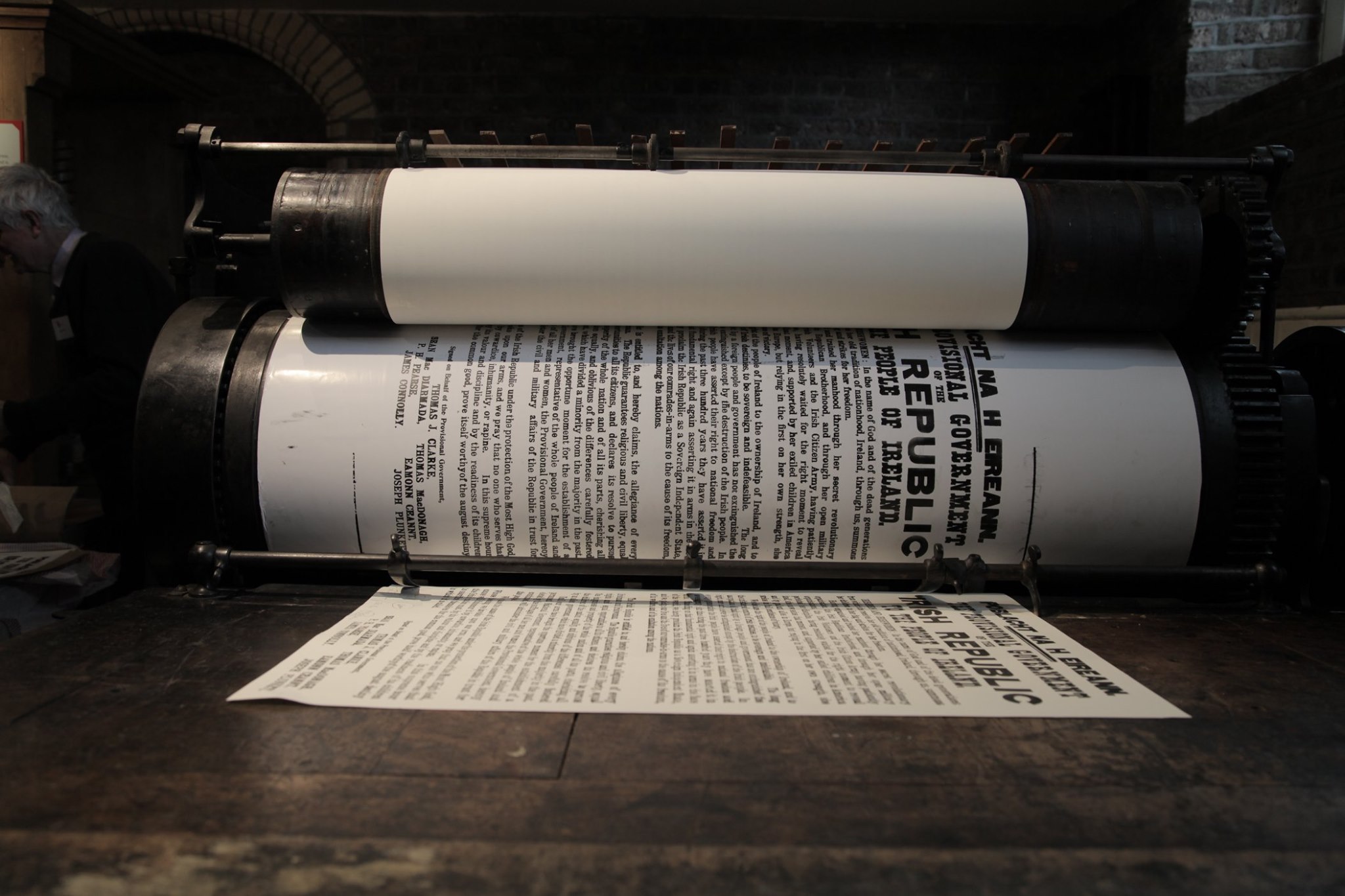
To protect and preserve: National Print Museum announces Ireland's love letter to letterpress printing
Ireland takes a stand for a craft not to be forgotten. On Thursday, July 28th, 2019 the country's Minister for Culture, Heritage and the Gaeltacht Josepha Madigan TD launched Ireland's permanent National Inventory of Intangible Cultural Heritage -a measure representing official State recognition of cultural practices all around the country and will serve to protect and promote these practices for generations to come. Celebrating living cultural heritage practices 30 elements of living Irish culture were given official recognition at the event which took place at Waterways Ireland and Letterpress Printing is one of them.
“It is wonderful to see such a variety of customs and traditions from all over the country being acknowledged here today. Each of these threads in the cultural tapestry of our lives makes us richer as individuals and as a country. None of this would be possible without the work of committed volunteers all around the country, whose involvement in their communities’ cultural practices and heritage traditions have sustained them over the generations. I am delighted to honour those customs, practices and traditions through official State recognition on the National Inventory” noted the Minister.
The development of the National Inventory of Ireland’s Intangible Cultural Heritage is an integral part of the Department of Culture, Heritage and the Gaeltacht’s work under the 2003 UNESCO Convention for the Safeguarding of the Intangible Cultural Heritage which requires signatory States to recognise, protect and promote the living cultural heritage of their countries.
As noted in Ireland's National Print Museum social media posts the recognition of letterpress printing in this capacity is the result of a successful application by the museum's CEO, Carla Marrinan Funder, to the above.
In the event of Ireland's pledge to protect and preserve the art of the letterpress craft we take a look at the country's National Print Museum. Spear-headed by Sean Galavan, the National Print Museum was founded by members of the print industry and it opened its doors in 1996. Today the Museum is fully accredited under The Heritage Council’s Museums Standards Programme for Ireland.
“Letterpress is a form of relief printing, which was invented by Johannes Gutenberg in 1439. The invention is one of the greatest known to mankind. It was the chief manner of printing which prevailed for over 500 years before becoming obsolete, in the commercial sense, in the mid-twentieth century”
“It is a unique museum — the only one of its kind in Ireland. The collection is made up largely of letterpress printing equipment. Letterpress is a form of relief printing, which was invented by Johannes Gutenberg in 1439. The invention is one of the greatest known to mankind. It was the chief manner of printing which prevailed for over 500 years before becoming obsolete, in the commercial sense, in the mid-twentieth century.”
“The main collection is not behind glass or rope, but is instead an example of a working collection. The collection consists of fully-operational letterpress printing equipment, displayed and organised like a traditional 1960s print-shop. The panel of retired printers and compositors, who founded the Museum continue to play a vital role in preserving the collection and the craft. A major challenge is preserving their knowledge and skills, and passing these on to future generations” notes the museum which runs an exhibition on NASA's ever-so-popular Apollo 11 anniversary -part of its temporary exhibitions agenda which explores the impact of print and the powerful role it played in shaping our histories.
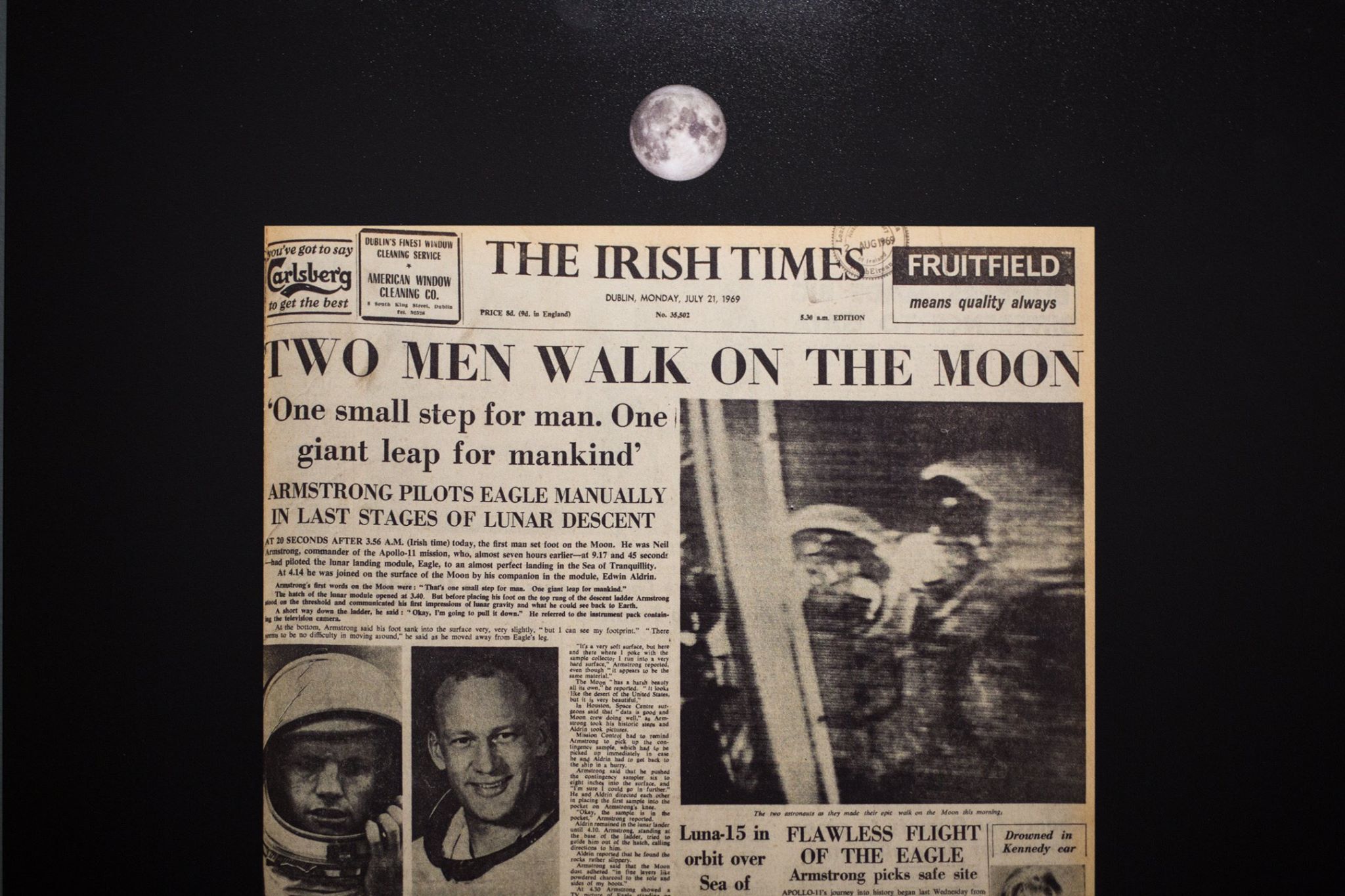
“In recent times, there has been an international revival in letterpress as a craft form. Possible reasons for this resurgence of interest is the reality of digital fatigue and a yearning for the hand’s involvement in design and craft”
“Printed artefacts capture the spirit of the age in which they were created. Print forms an intrinsic part of our lives, and the development, prosperity, and rich heritage of Irish printing form an important part of our national story of craft and industry” adds National Print Museum that celebrates the 50th anniversary of man landing on the moon with the opening of “To the Moon” exhibition.
Curated by Dr Ciaran Swan “To the Moon” explores Ireland’s response to the man landing of the moon through print. Given the historical significance of the events of July 20th, 1969, a range of coverage was evident across the island. The front pages of national and regional newspapers, as well as the RTE Guide, give a flavour of the response in the exhibition.
“In recent times, there has been an international revival in letterpress as a craft form. Possible reasons for this resurgence of interest is the reality of digital fatigue and a yearning for the hand’s involvement in design and craft, and the idea of going full circle – from craft to technology and back again” adds the National Print Museum, a shrine of love to the letterpress that made us.